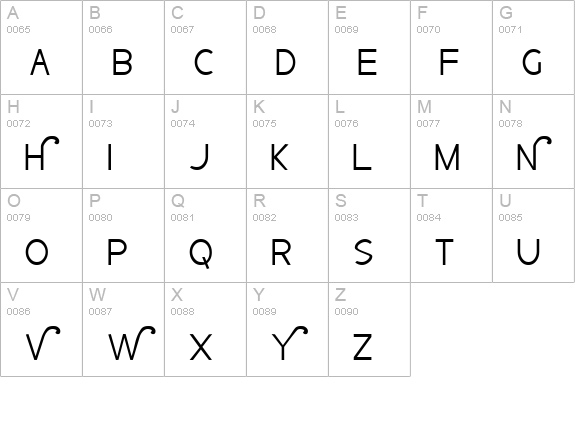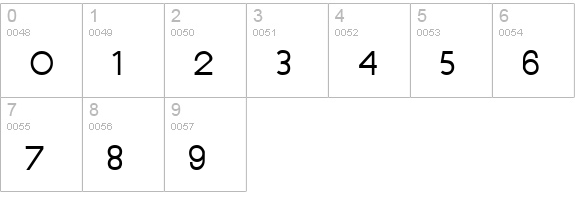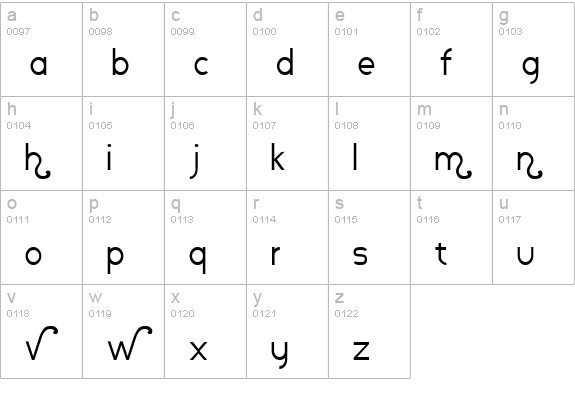
Nauvoo Font Details
Nauvoo font is a stunning display typeface that exudes elegance and sophistication. With its graceful curves and intricate details, this font is perfect for creating eye-catching designs that demand attention. Whether you're working on a branding project, a poster design, or any other creative endeavor, Nauvoo font will elevate your work to the next level. And the best part? Nauvoo font is available for free download at FontsMarket.com. So you can add this beautiful typeface to your font collection without breaking the bank. Don't miss out on the opportunity to enhance your designs with the timeless charm of Nauvoo font. Download it today and let your creativity shine!